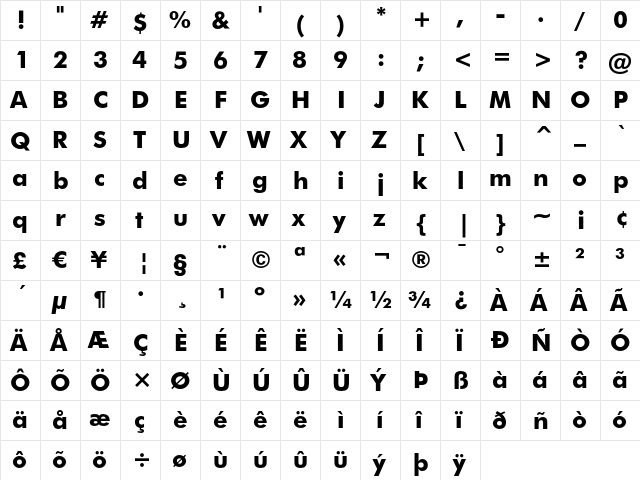
Futura Bold Font Preview
Futura Bold
Futura Bold Font Details
Design Context for Futura Typeface
Futura channels digital-age aesthetics through its sharp, structured letterforms — ideal for brands that want to signal innovation. Its bold stroke weight gives it real presence on the page.
Pro Tip: Try Futura with generous letter-spacing in UI labels and navigation — the geometric forms benefit from room to breathe.